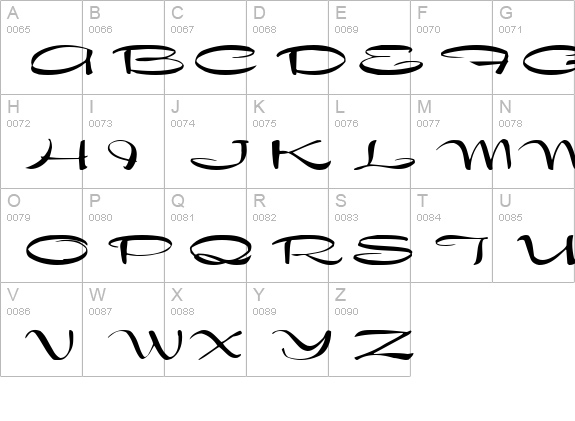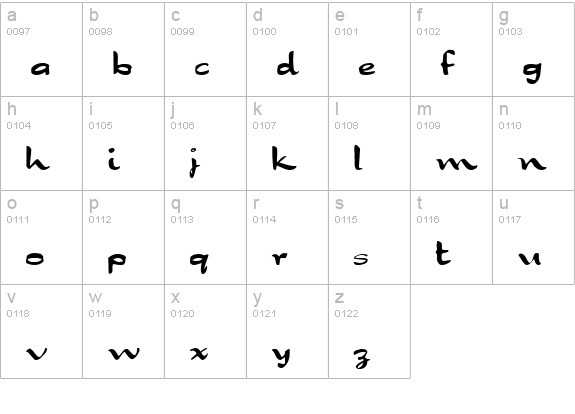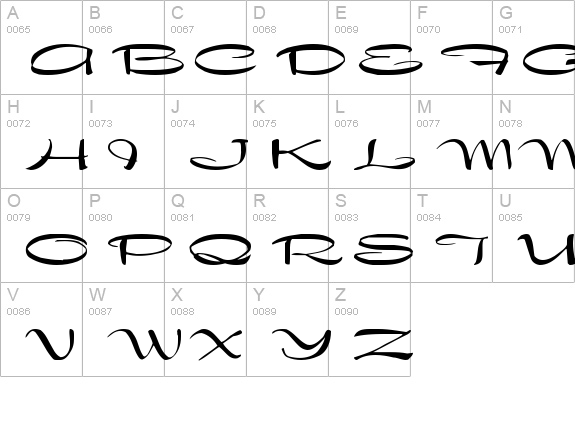
QTArabian Regular Font Details
QTArabian Regular is the standard, neutral variant in the QTArabian typeface family \xE2\x80\x94 well suited to general body text, paragraphs, and standard typographic work.
QTArabian Regular is a beautifully designed font that combines elegance and versatility. With its fluid strokes and intricate details, it adds a touch of sophistication to any project. This font is perfect for creating stunning logos, branding materials, invitations, and much more. What makes QTArabian Regular even more special is that it is completely free. Yes, you read that right - this incredible font is freely available to download at FontsMarket.com. Whether you're a professional designer or someone who just loves experimenting with different fonts, you can now enjoy the beauty and functionality of QTArabian Regular without any cost. The creators of QTArabian Regular understand the importance of accessibility and believe that everyone should have access to high-quality fonts. That's why they have made this font available for free, allowing designers and enthusiasts from all walks of life to create amazing visuals without breaking the bank. Not only does QTArabian Regular offer a wide range of characters and glyphs, but it also supports multiple languages, making it suitable for various projects around the world. Its smooth curves and balanced letterforms make it easy to read, ensuring that your message is conveyed with clarity and style. So, whether you're working on a professional project or just want to add a touch of elegance to your personal creations, QTArabian Regular is the perfect choice. Download it for free at FontsMarket.com and start exploring the endless possibilities this font has to offer.